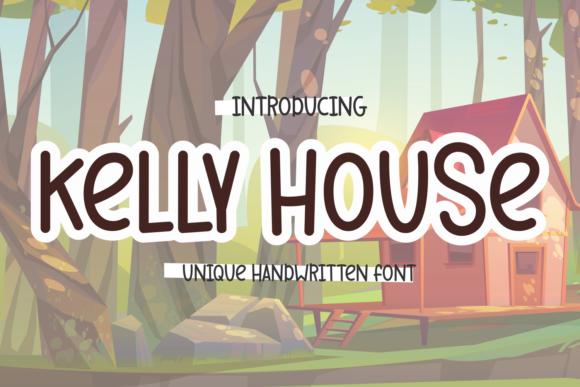
Dive into the world of typography artistry with Kelly House, a spirited handwritten font crafted to infuse your designs with a touch of whimsy and fun. Its enchanting dance of strokes, reminiscent of a playful penmanship, captures the essence of creativity and originality.
With Kelly House, transform your projects into captivating masterpieces. Its lively characters exude an infectious energy, adding a vibrant touch to invitations, social media posts, logos, and branding. Let your imagination run wild as you explore its endless possibilities.
Buckle up for a journey through the world's most captivating handwritten fonts as Kelly House takes you on a visual adventure. Its enchanting collection of ligatures adds an organic flow to your words, making every letter feel connected and alive. Unleash the power of storytelling and captivate your audience with designs that speak volumes.
Explore the realm of boundless creativity as Kelly House invites you to break free from the ordinary. Its delightful strokes and cheerful charm infuse your designs with an irresistible appeal, leaving a lasting impression on all who encounter them. Embrace the beauty of spontaneous expression and let your imagination soar.